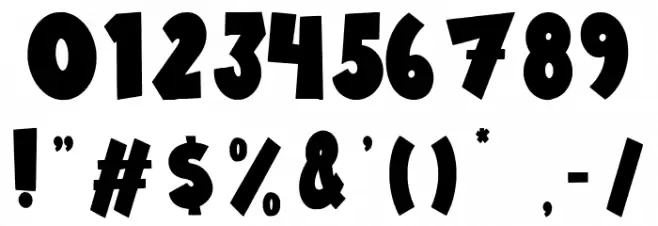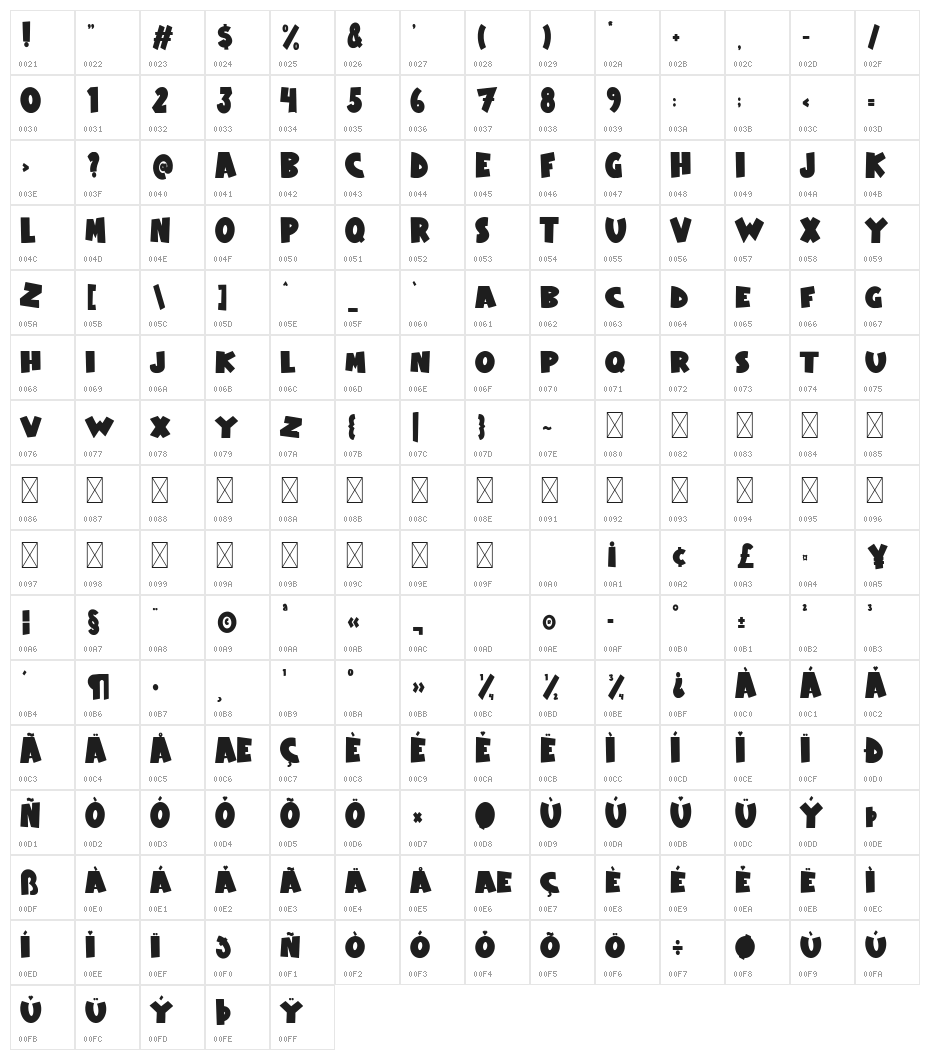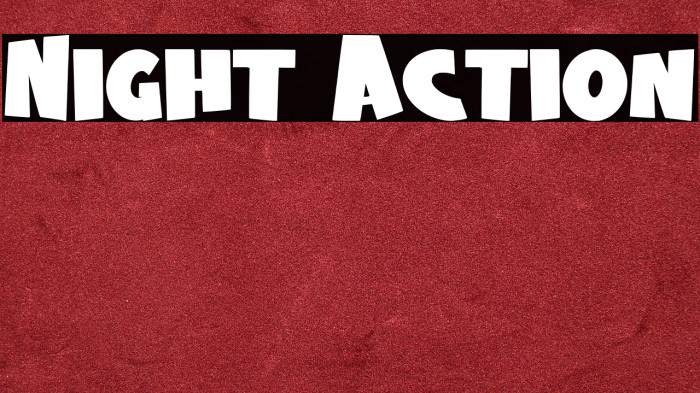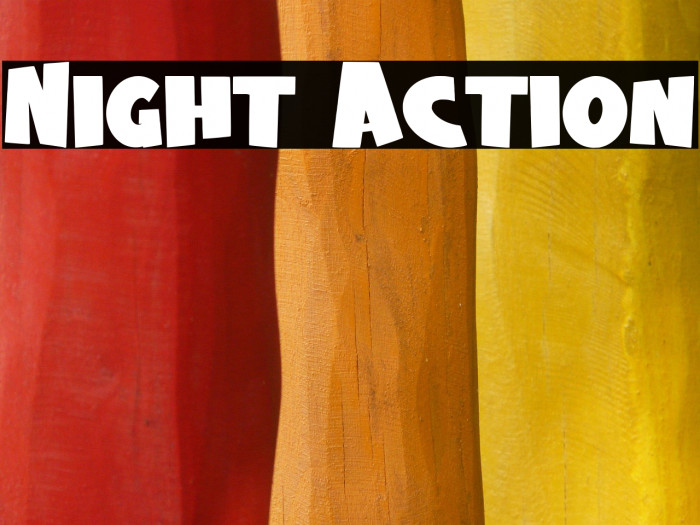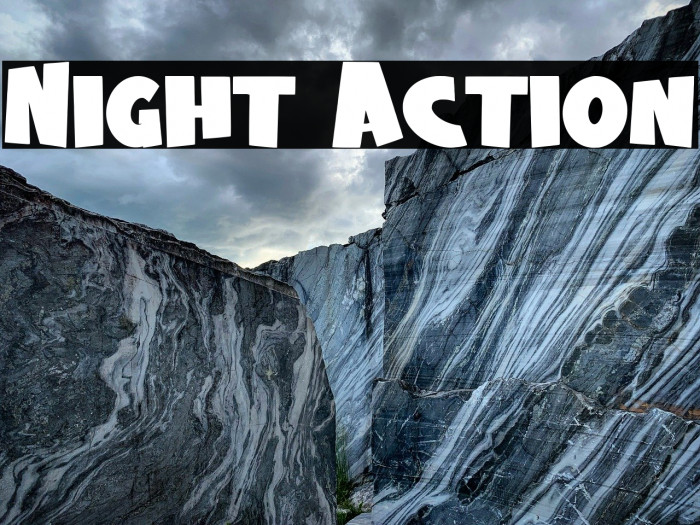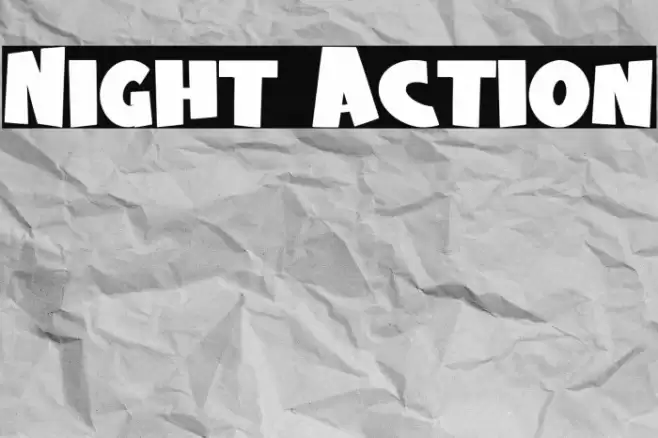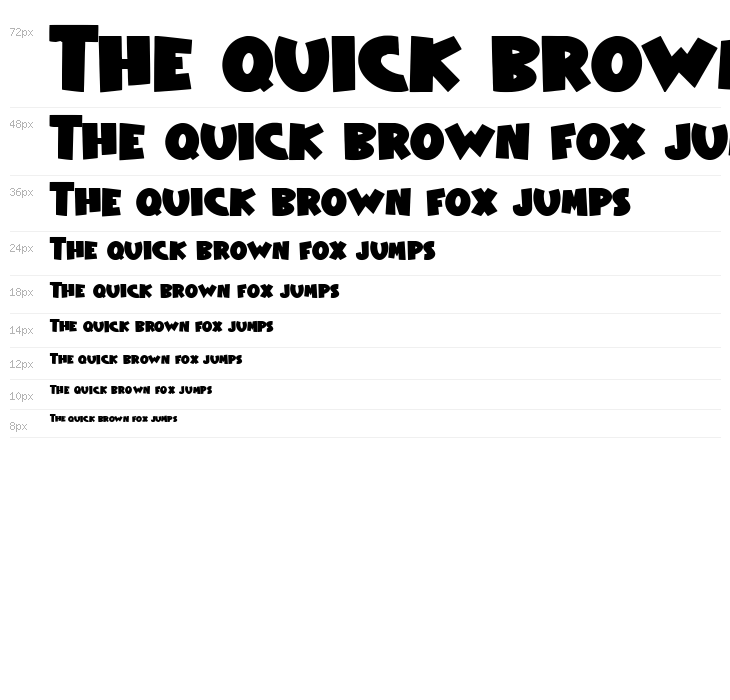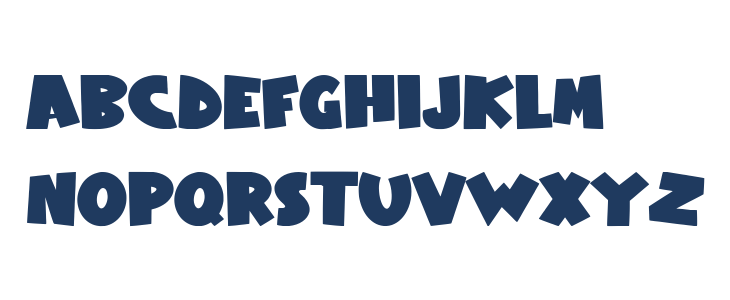
Night Action Font
Night Action Description
This font features bold, playful characters with a cartoonish and dynamic appearance. The letters are thick and slightly irregular, giving them a lively and energetic feel. The uppercase and lowercase letters maintain a consistent style, with exaggerated curves and angles that add to the whimsical nature. Numbers and special characters follow the same design principles, ensuring a cohesive look across all glyphs. The font's boldness makes it stand out, making it ideal for attention-grabbing designs.
| Overall Style | Playful, Cartoonish |
| Proposed Projects | Ideal for children's books, comic strips, playful branding, and eye-catching posters. |